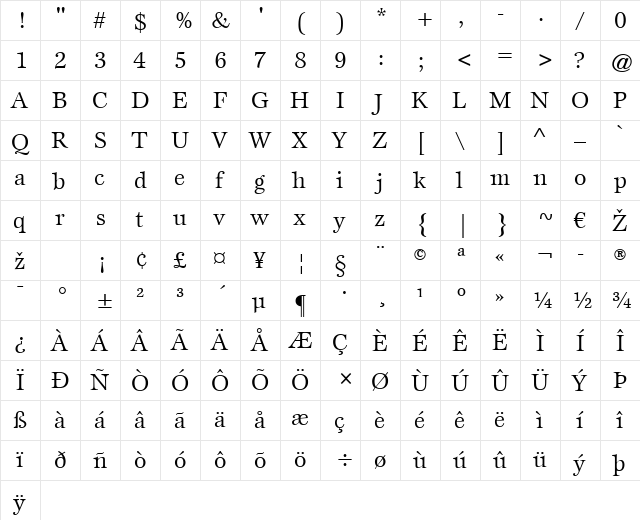
Esprit LT Book Regular
Design Context for Esprit LT Book Typeface
Esprit LT Book takes a measured approach to typography — its balanced proportions and neutral character make it a reliable workhorse for both digital and print work. The delicate stroke weight brings airiness and refinement to layouts.